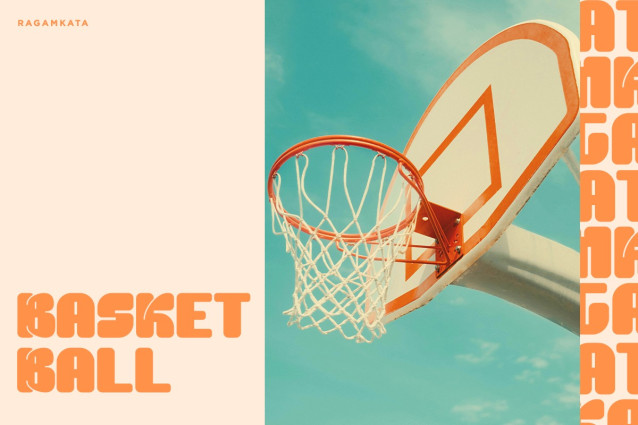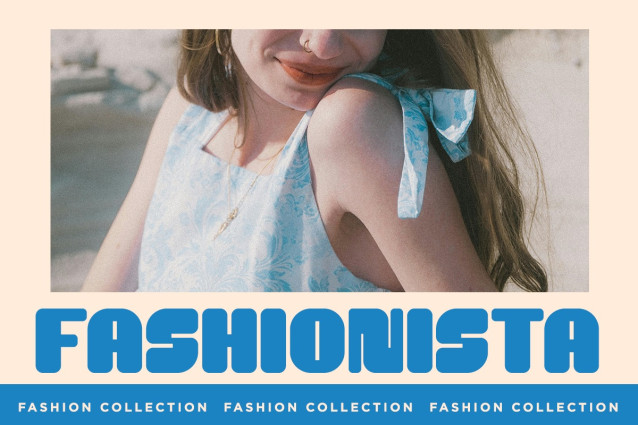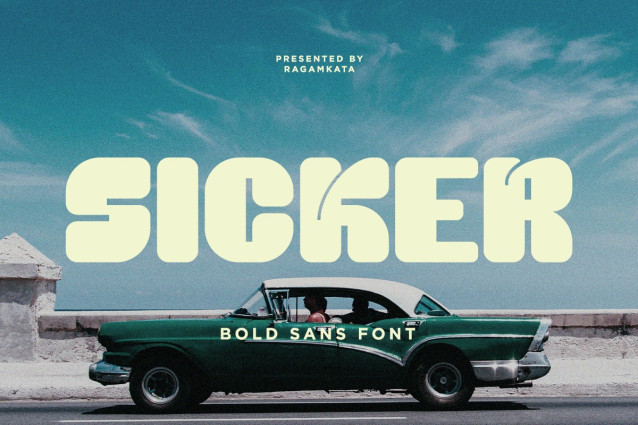
Sicker Sans Font
Sicker Sans Font is a bold sans font for brand identity. Sicker created with the vision of to attract the audience to your brand . The finest details of this typeface are methodically and mathematically created. Sicker Sans is created with all the tasks of a corporate font and also for the usage in a variety of projects, including branding, logos, titles, headlines, servers, posters, screens, display, digital ads, and everything else.